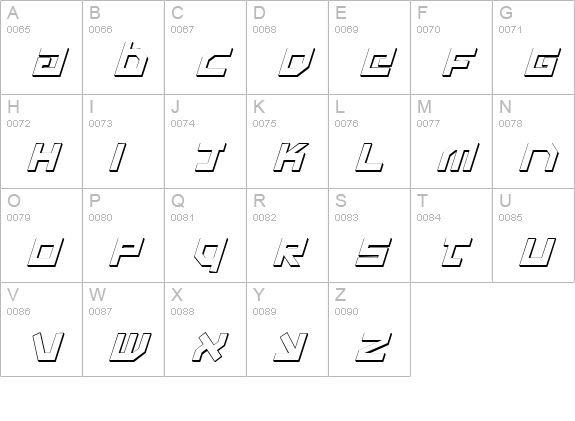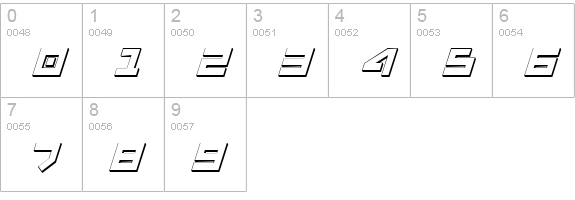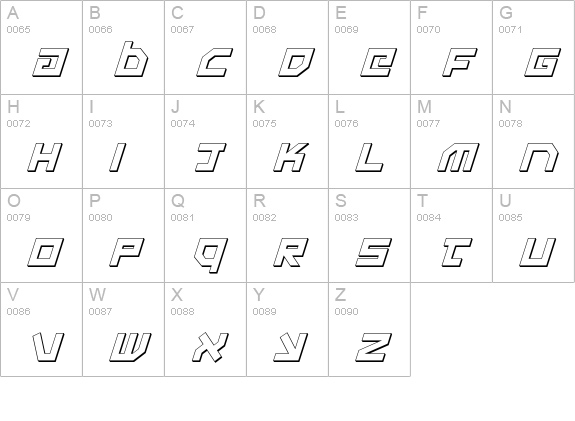
Uno Estado 3D Italic Font Details
Uno Estado 3D Italic is a distinctive, italic variant in the Uno typeface family \xE2\x80\x94 well suited to design and typography projects.
Uno Estado 3D Italic font is a stunning and dynamic typeface that brings a sense of depth and dimension to your designs. Its sleek and modern design is perfect for projects that require a touch of sophistication and creativity. The italicized style adds a sense of movement and elegance, making it ideal for titles, headings, and other attention-grabbing text. Best of all, Uno Estado 3D Italic font is completely free to download at FontsMarket.com. Whether you're a designer looking to add a unique flair to your work or a creative enthusiast wanting to elevate your projects, this font is a fantastic choice. Don't miss out on the opportunity to enhance your designs with this stylish and versatile typeface. Download Uno Estado 3D Italic font today and take your creations to the next level!